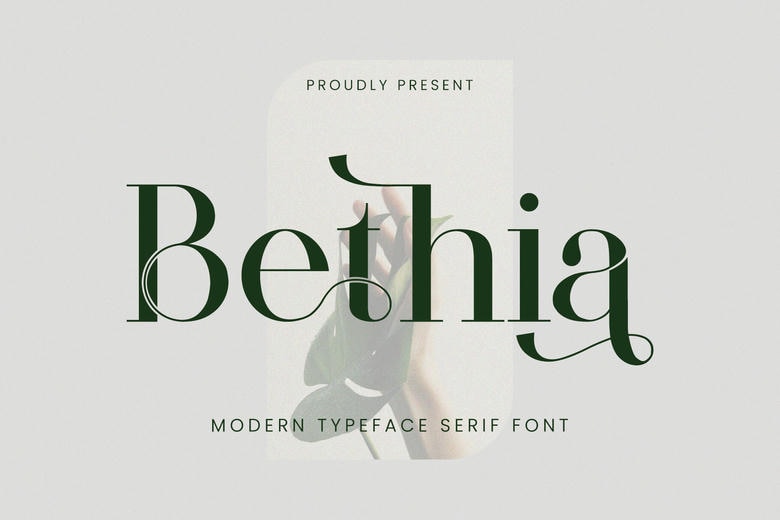
Bethia Font
Bethia is a modern serif font. Extremely good employee, very polite man, very kind. This is appropriate for invitation cards, the logo of a company, the title of a film or a name of a film, business cards, the title of a book, the name of a brand and many other designing items. Its stylish and elegant alternations and ligatures this font will go well with any project that you have in mind.
Bethia Serif Font